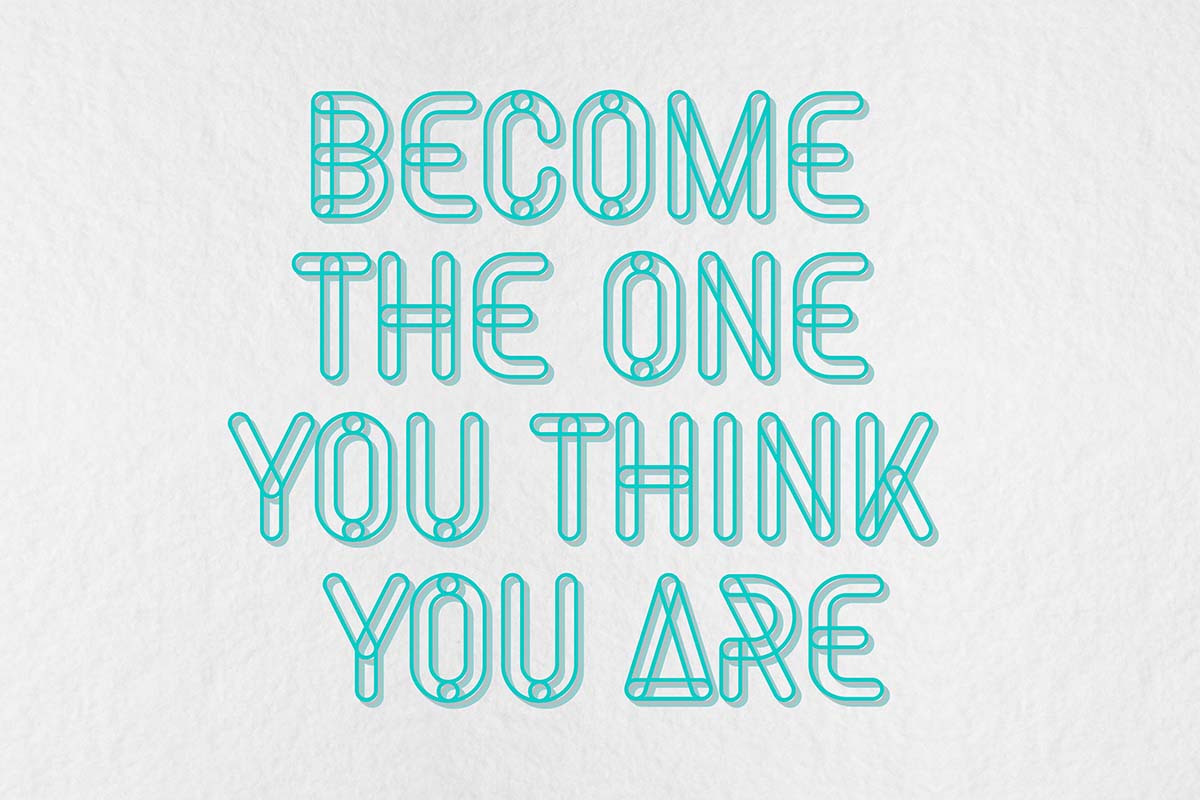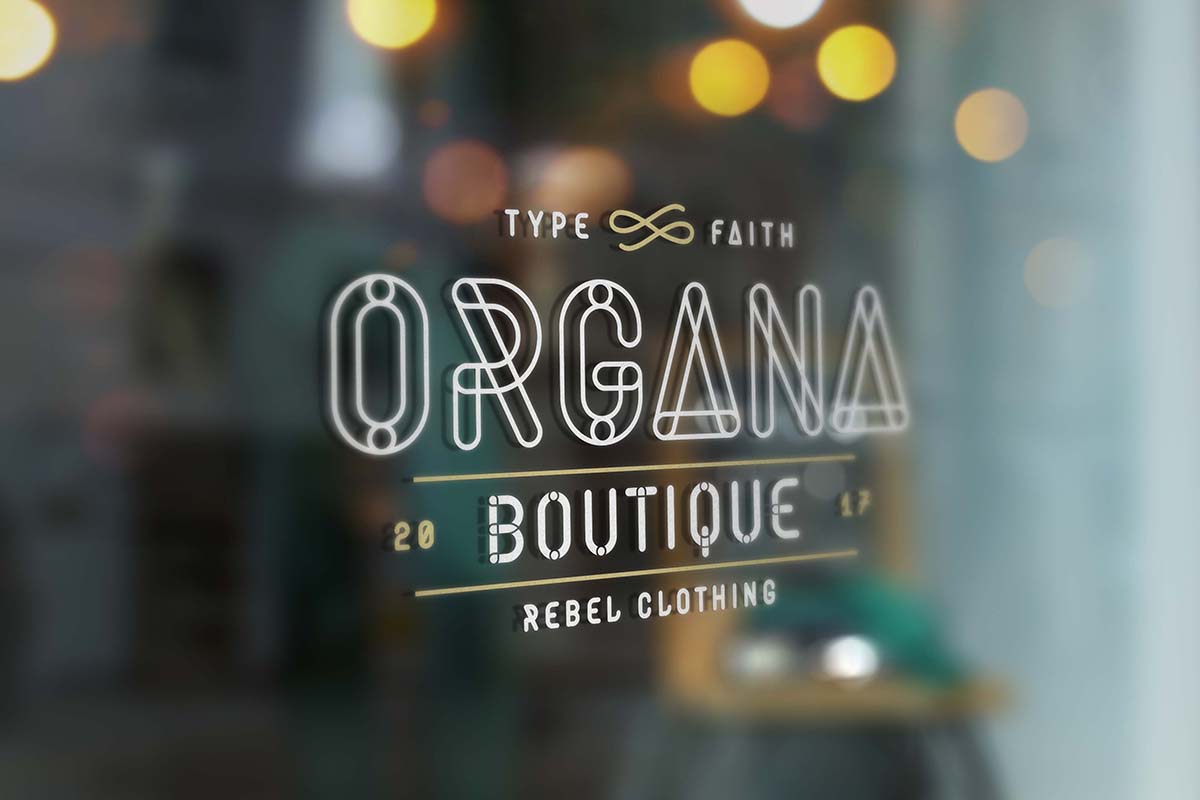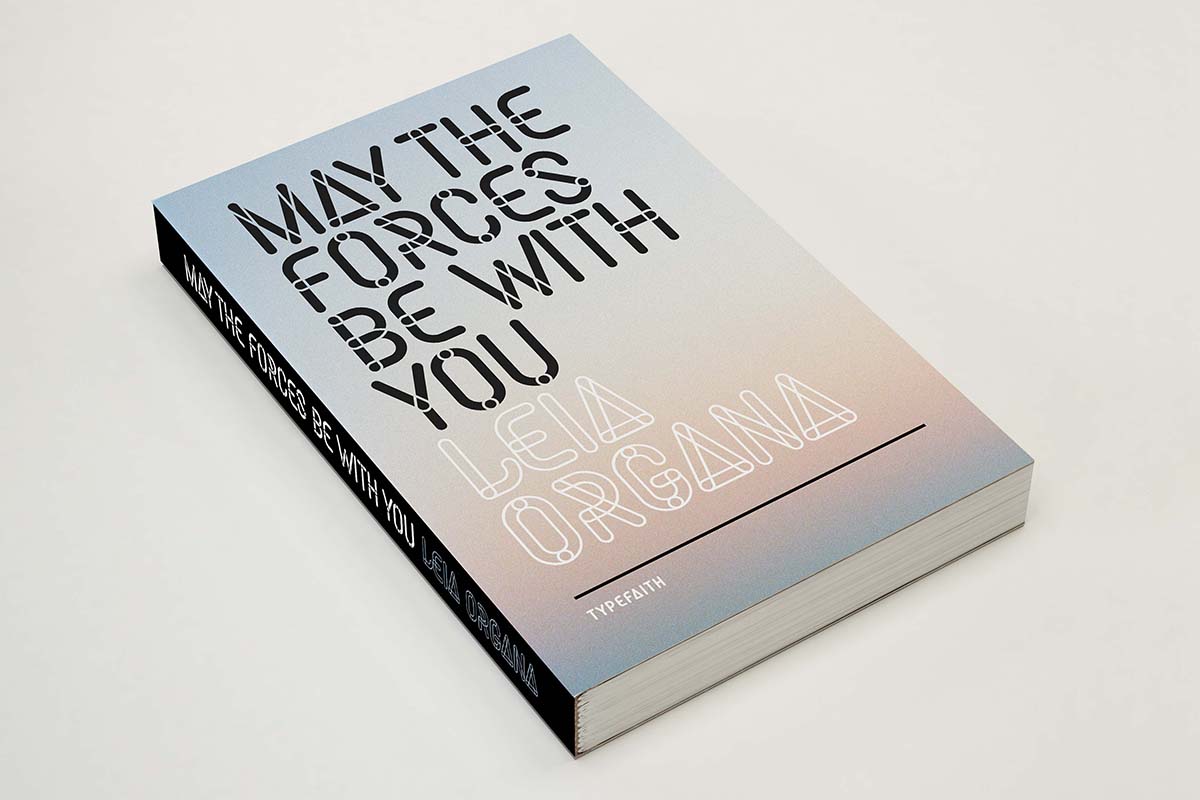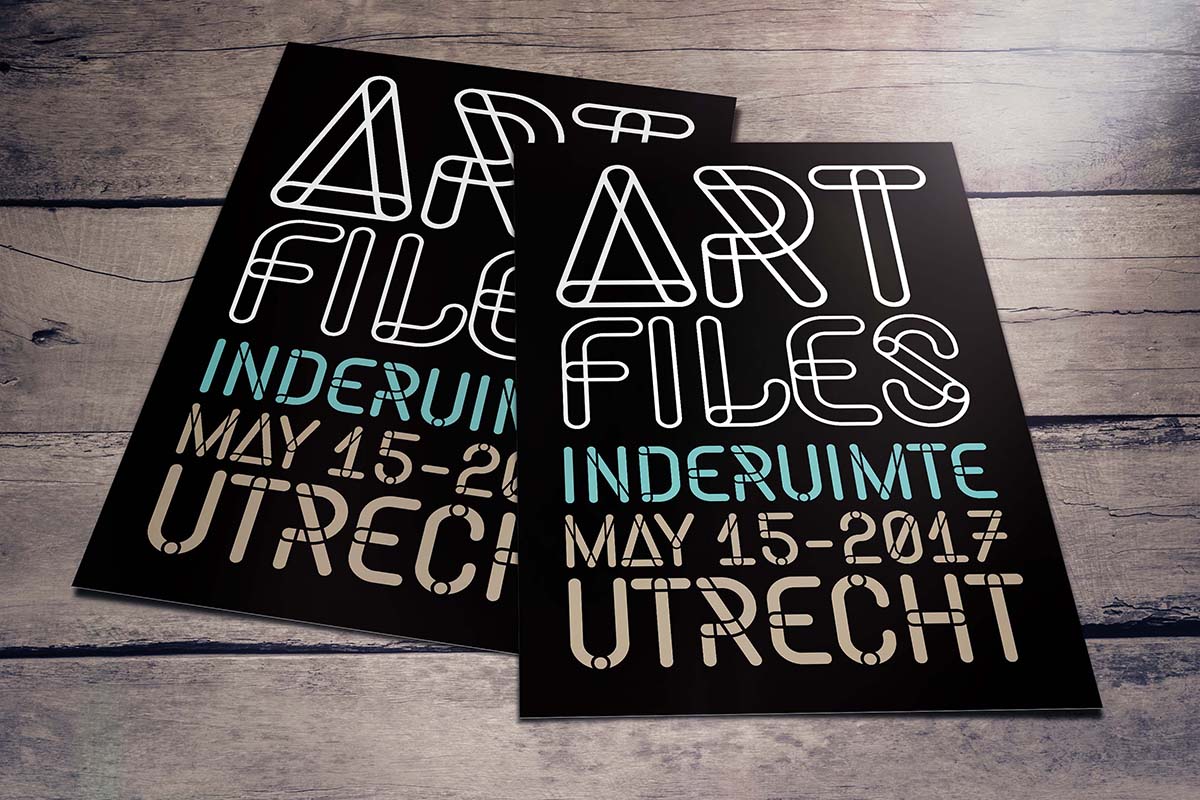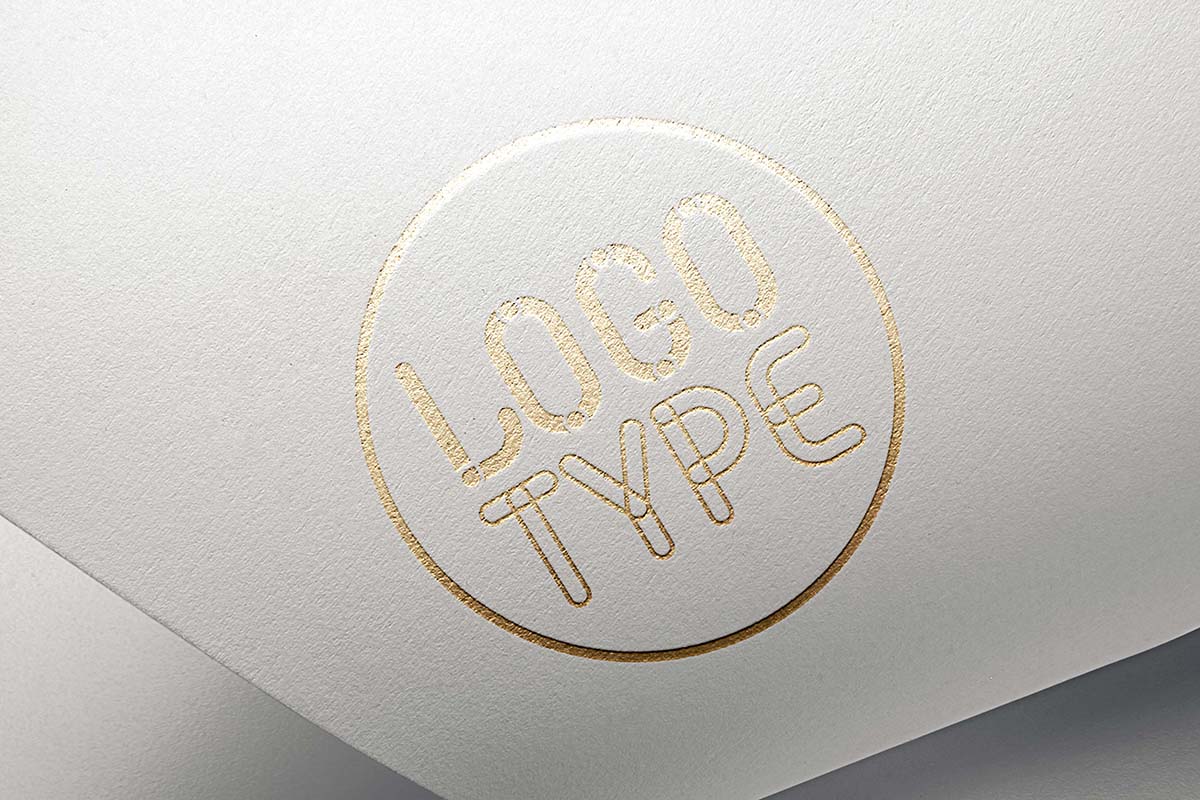
Organa - Font
Now that we're done with the hipster stuff, the handwritten and the brush fonts, it is time for something new: Organa, a stylish geometric font family. Create a new feel for your designs. Organa is a unique and creative font that can be used for logo design and branding, posters flyers and book covers. Organa will help you to shake off the old feel and to create something new. It comes in three styles that are easy to combine.